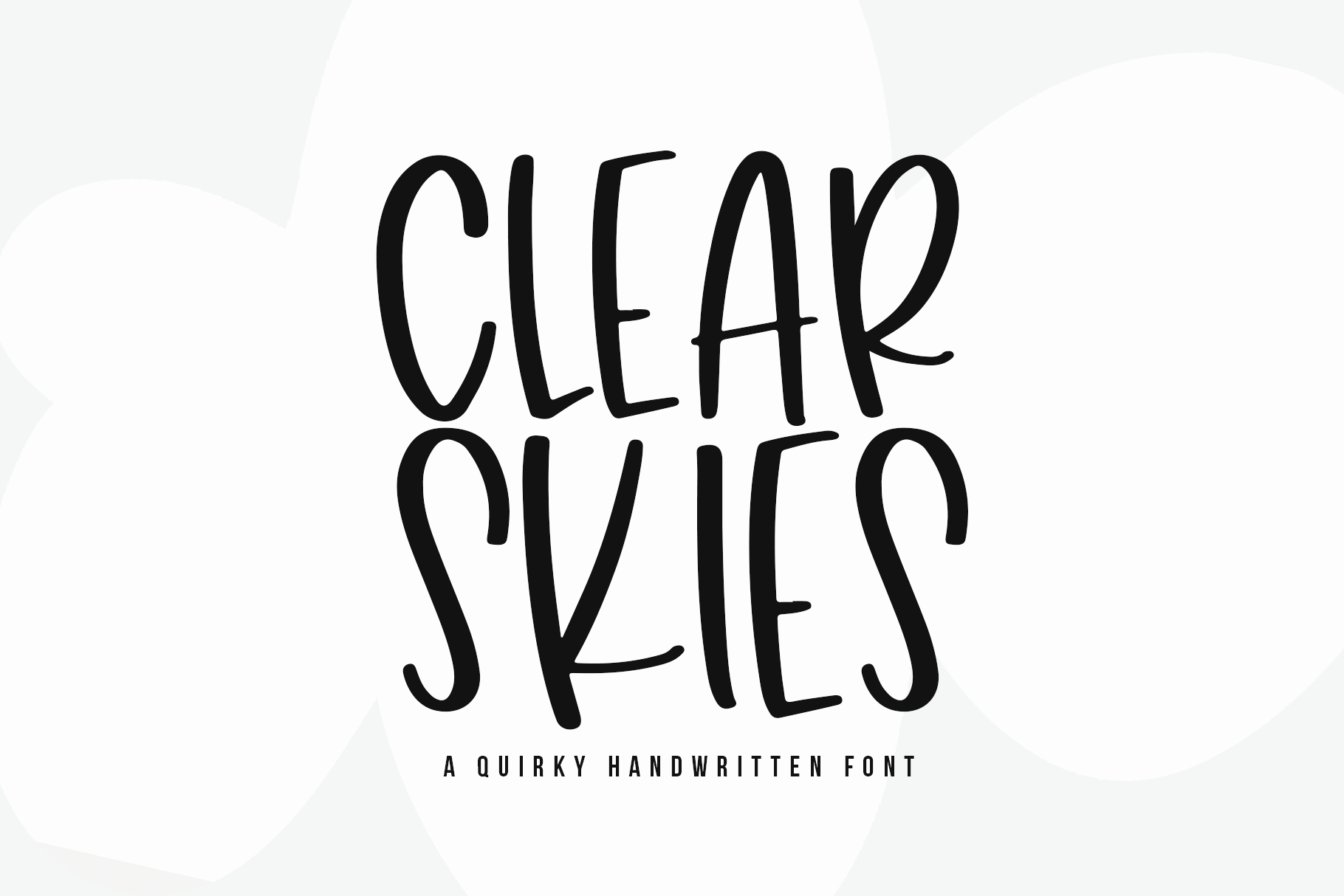
Clear Skies | Fun Handwritten Font
Clear Skies is a fun handwritten font!
This font is perfect for branding, logos, shirt designs, svg designs, craft projects, social media, instagram quotes, signs, decor and more!